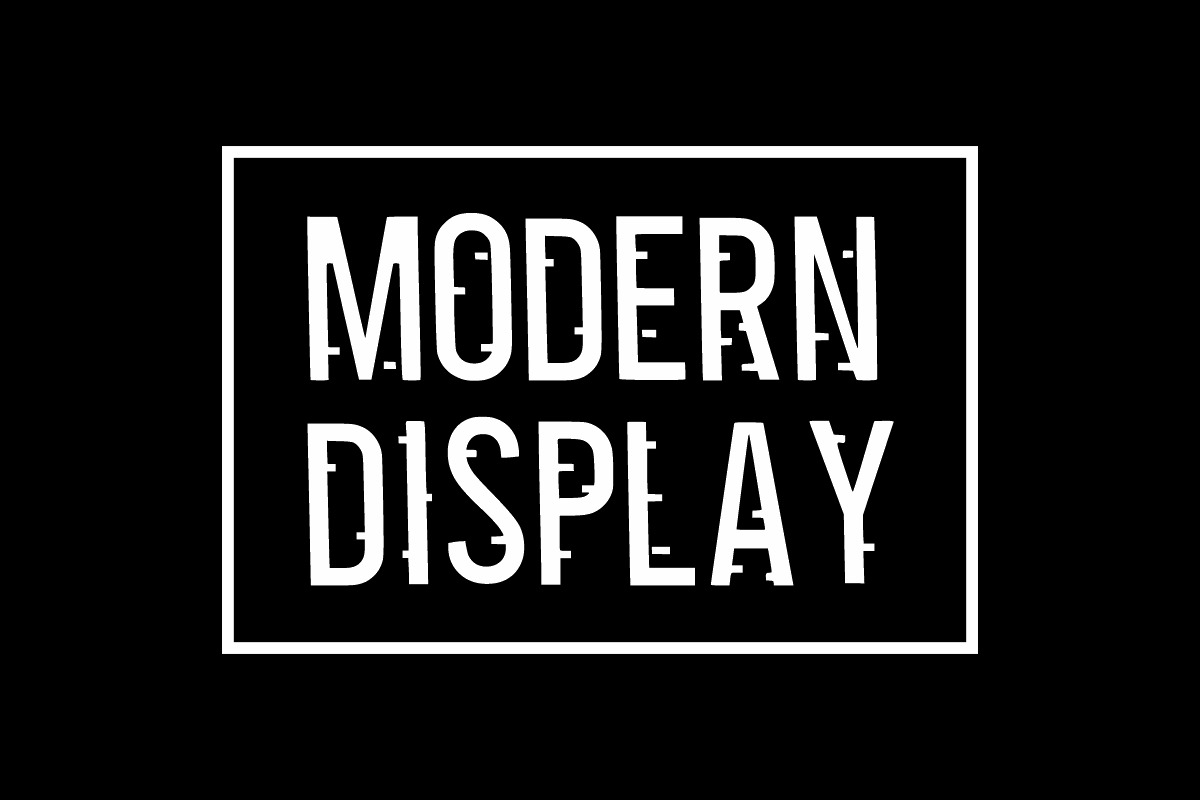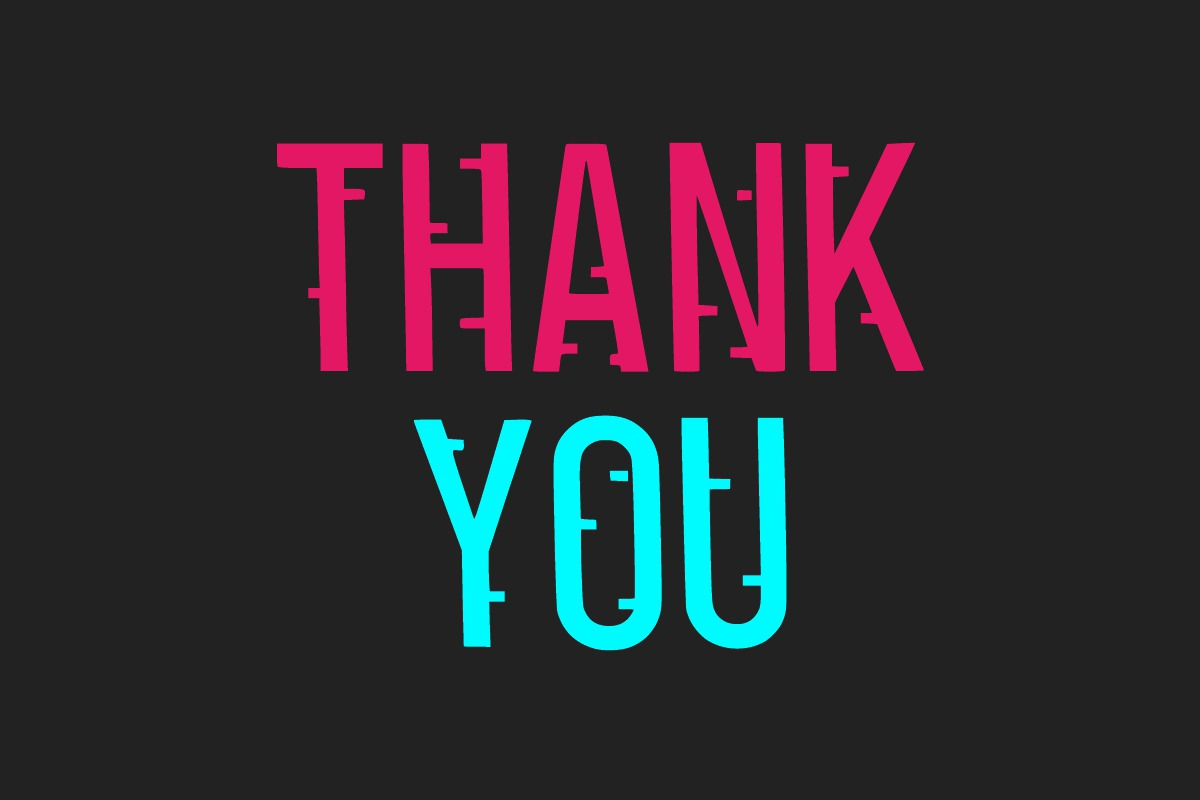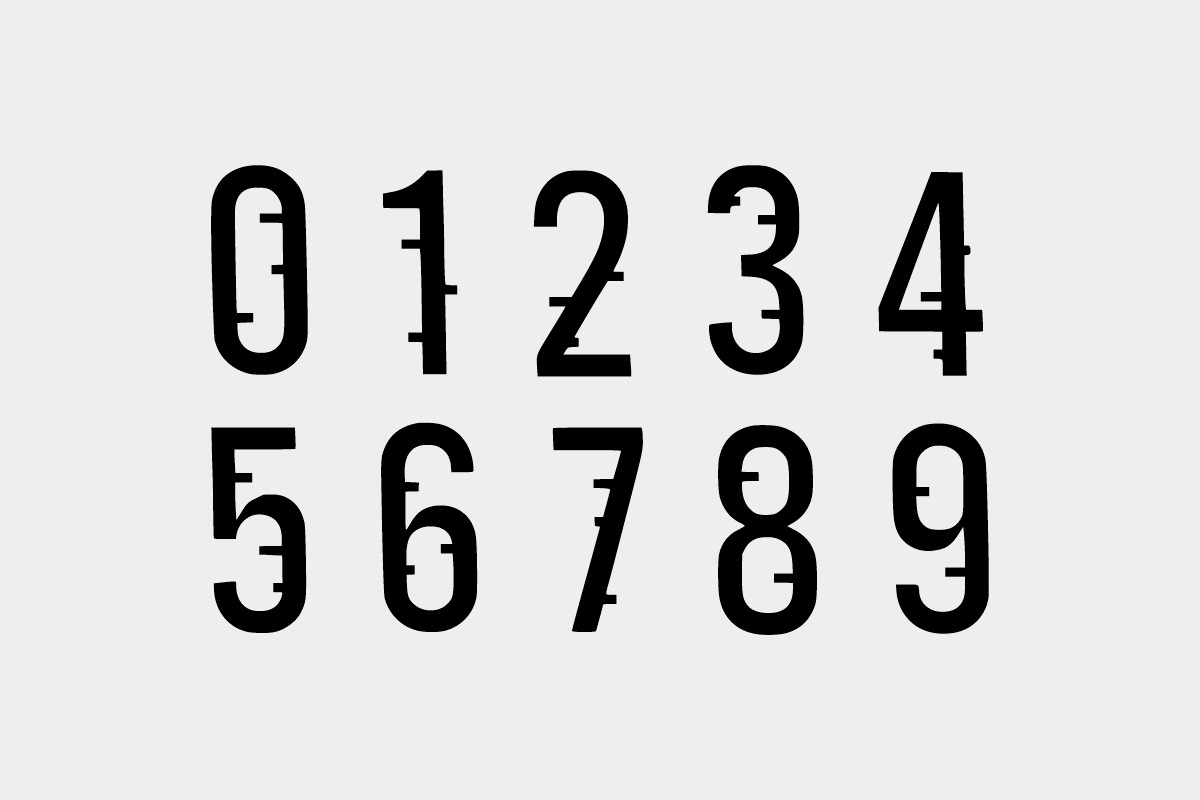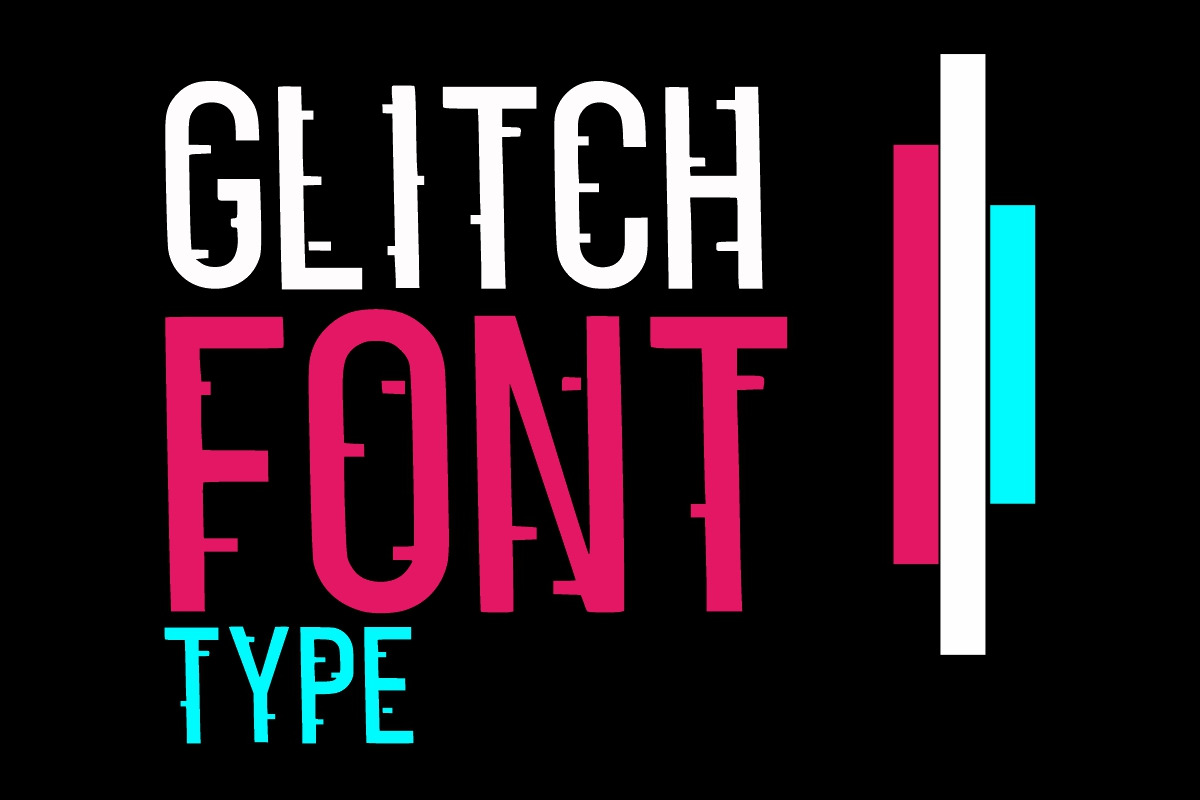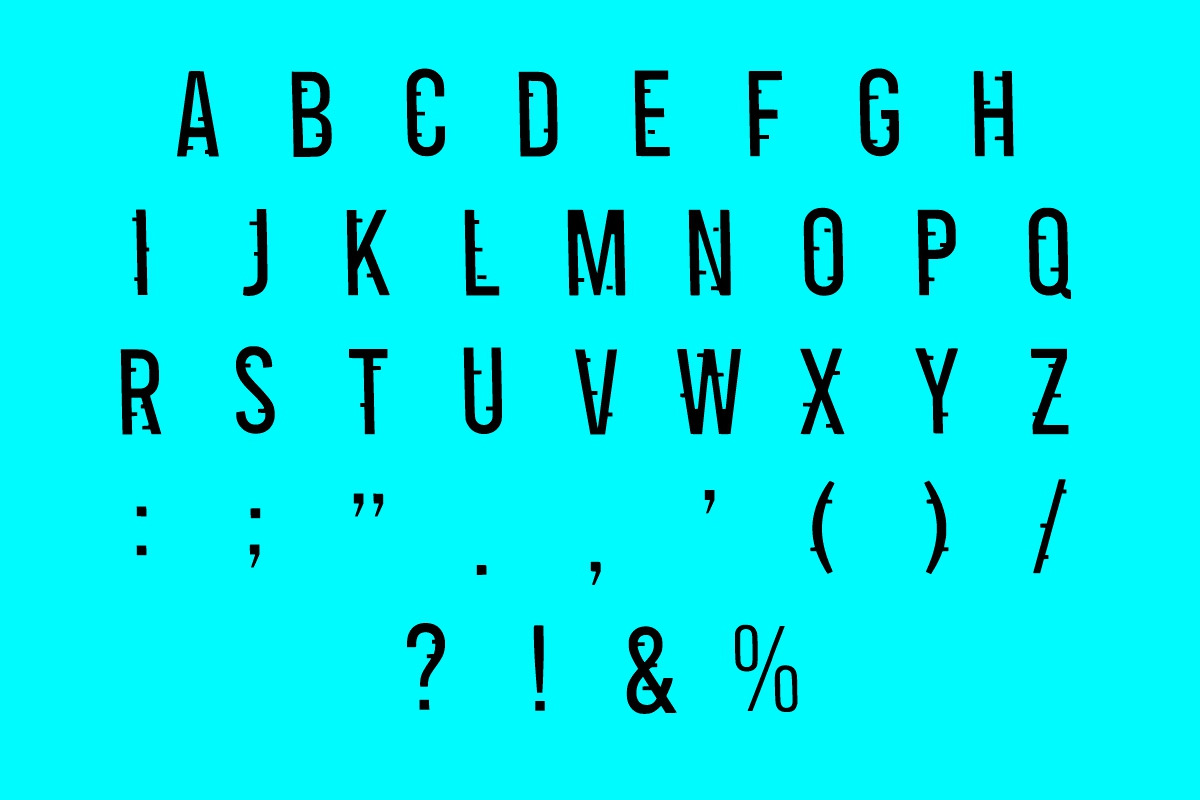
Hacked
Hacked is a cool and bold-looking display font. It features a dynamic effect and a unique charm. It is perfect for headlines, whether for sporting events, automotive posters, logos, or monogram designs.